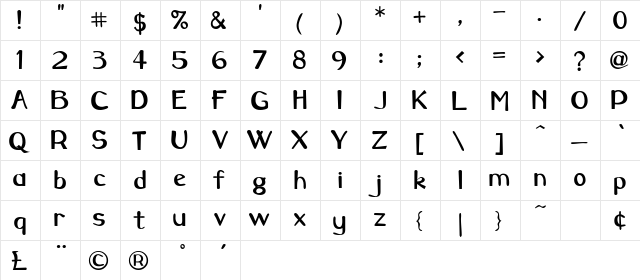
DurranceSSK Bold Font Preview
DurranceSSK Bold
Design Context for DurranceSSK Typeface
DurranceSSK offers clean, dependable letterforms without strong stylistic allegiance, making it a practical choice for designers who need flexibility. The heavy weight commands attention and anchors typographic hierarchies.